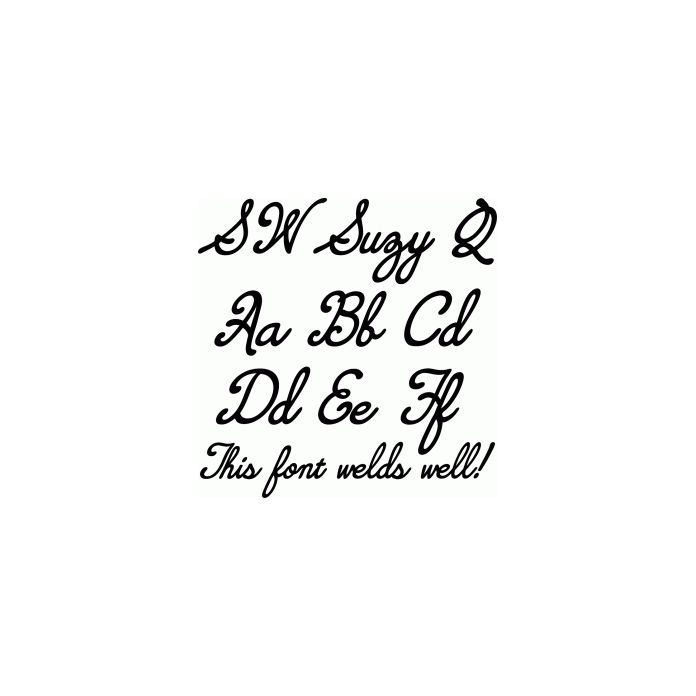
This font is specially designed with Silhouette users in mind. The letters are designed in a heavier weight for ease of cutting. It is also designed to weld together well so that your words cut in whole words and not individual letters. Not only is this font great for use with the Silhouette, but also this font is a great one to have on your computer for party invitations, cute wall quotes and more! For ideas on how to use fonts with your silhouette check out this tutorial: http://samanthaleewalker.blogspot.com/2014/04/texting-silhouette-style-by-allie.html For other tutorials and inspiration, or for information on obtaining limited commercial licenses for crafters on Samantha's silhouette designs please visit: http:// www.samanthawalkerdesigns.net and www.facebook.com/samanthawalkerdesigns